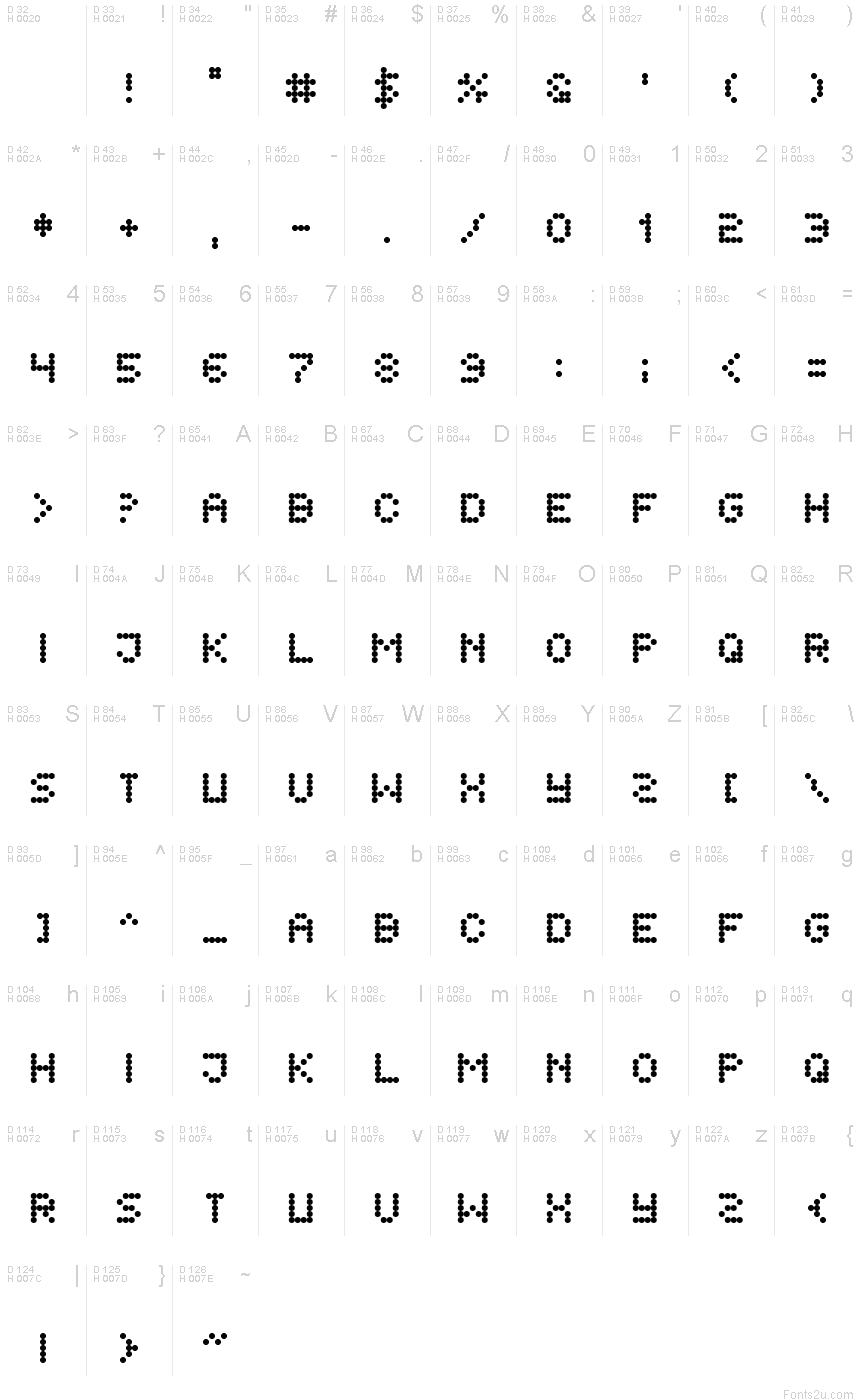
Flytningar
Flytningar font by Tarmsaft Font Factory is a free digital decorative typeface that turns every letter into a grid of inky, uniform dots. It looks like a cross between an LED marquee and a stack of bubble wrap, giving text a soft, tactile tech vibe-retro yet oddly playful. The rounded circles link together into blocky, readable forms that really come alive at larger sizes.
Using Flytningar, you can give character to retro tech posters, arcade game titles, glitchy album covers, sci-fi logos, LED signage mockups, or experimental UI headers. This free font shines when you crank it up big and keep the rest of the layout minimal; try pairing it with a clean geometric sans for body copy so the dotted letters stay the star.